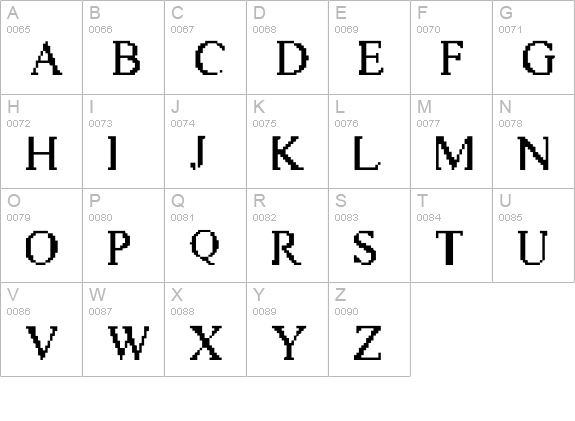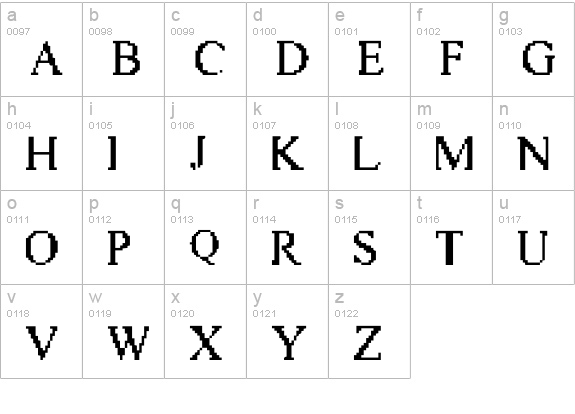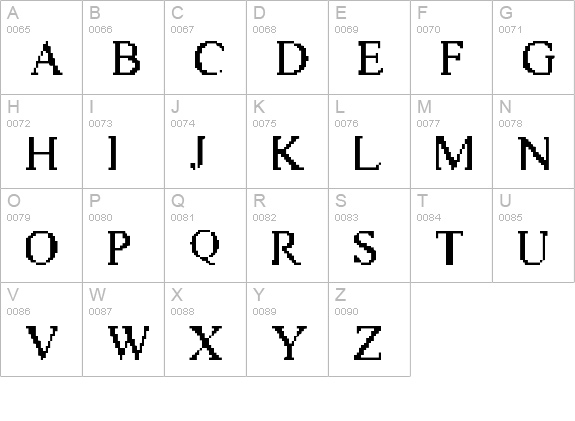
Vic Twenty Font Details
Introducing Vic Twenty, a sensational font that embodies a perfect blend of modernity and nostalgia. This remarkable typeface effortlessly transports us back to the golden era of vintage computing, evoking memories of pixelated graphics and the mesmerizing simplicity of early video games. Vic Twenty is a true testament to the power of design, with its clean lines and sharp edges capturing the essence of retro technology. Its bold and distinct characters will command attention and leave a lasting impression on any project it graces. But what truly sets Vic Twenty apart is its incredible accessibility. This font is not only visually captivating, but also freely available to download at FontsMarket.com. Yes, you read that right – this exceptional typeface can be yours, completely free of charge. Whether you're a seasoned designer looking to add a touch of nostalgia to your creations or a vintage enthusiast seeking the perfect font for your next project, Vic Twenty is the ultimate choice. Its versatility allows it to seamlessly integrate into a wide range of designs, from logo and branding work to posters, websites, and everything in between. With Vic Twenty, the possibilities are endless. So why wait? Unlock the power of this extraordinary font and let it transport you to a world where pixels reign supreme and creativity knows no bounds. Download Vic Twenty now, exclusively at FontsMarket.com, and embark on a typographic journey that pays homage to the past while embracing the future.